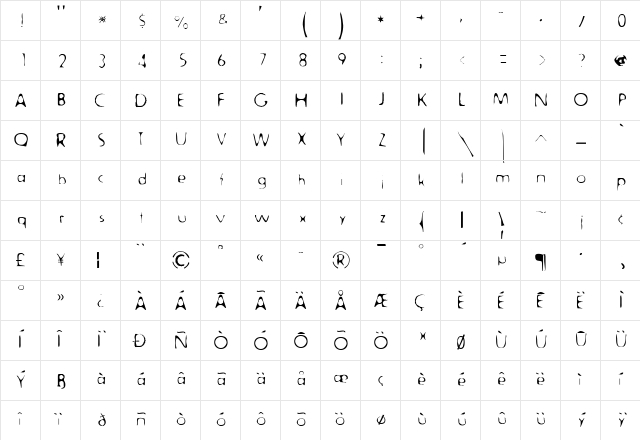
Outahere Light
Design Context for Outahere Typeface
Outahere is a composed and adaptable typeface that performs quietly and consistently across a wide range of design contexts. The delicate stroke weight brings airiness and refinement to layouts.